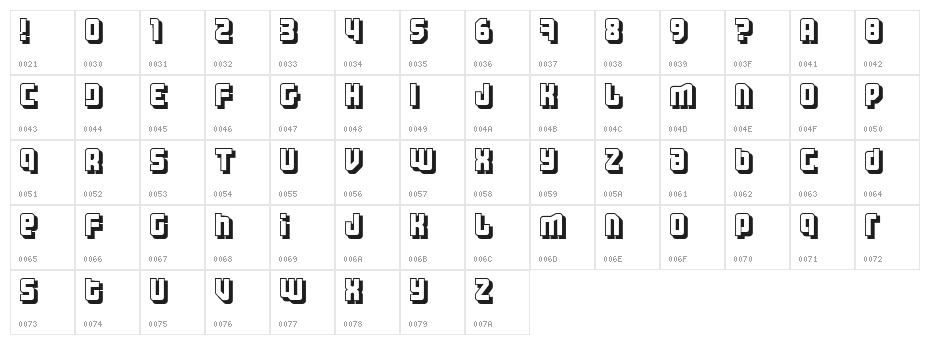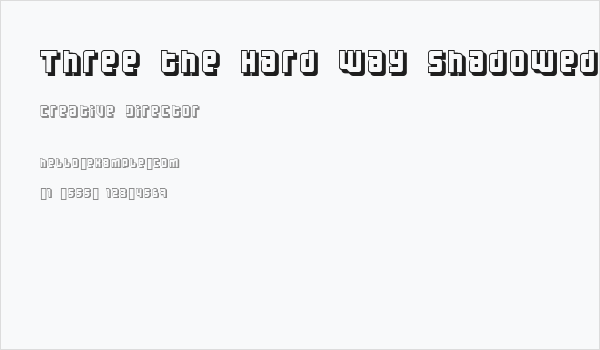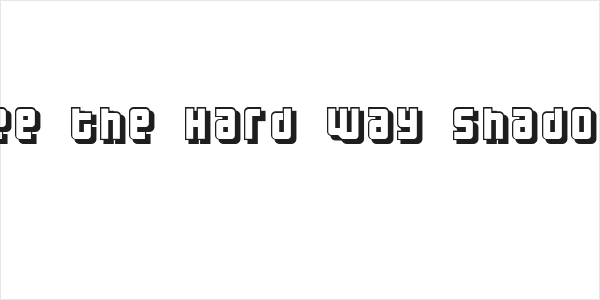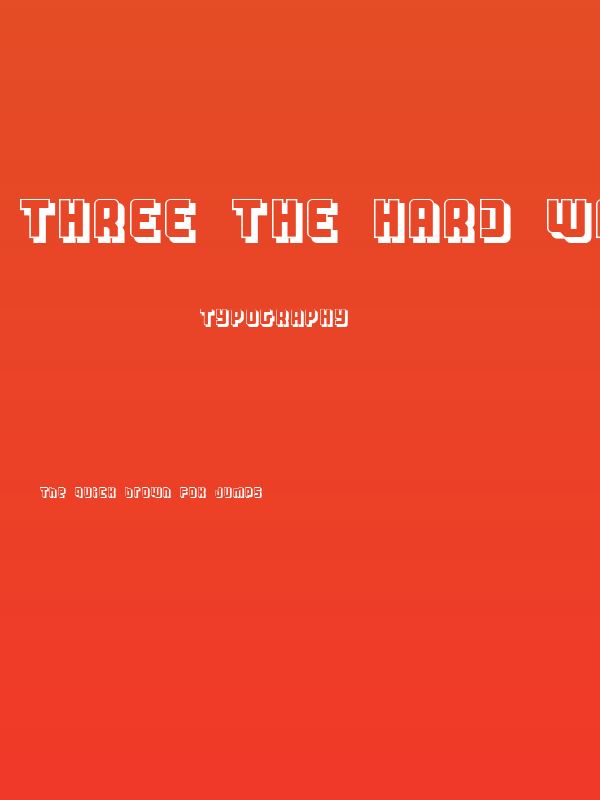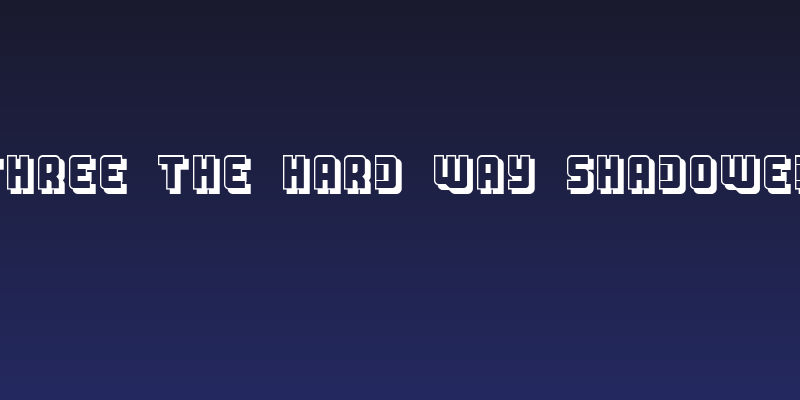
Three the Hard way shadowed Font
Three the Hard way shadowed Description
This font features a bold, shadowed style that gives each character a three-dimensional appearance. The letters are blocky and geometric, with a strong emphasis on vertical and horizontal lines. The shadow effect adds depth, making the characters stand out prominently. The uppercase and lowercase letters maintain a consistent design, with slight variations in size and shape. The numbers follow the same bold, shadowed style, ensuring uniformity across all characters. Special characters are also included, matching the overall aesthetic. This font is ideal for creating eye-catching headlines or titles that require a strong visual impact.
Proposed ProjectsIdeal for posters, logos, and headlines that need a strong visual impact.